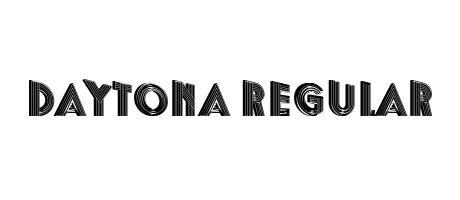
Daytona
Daytona Regular is a bold, geometric sans-serif font. Its letters are composed of stacked, parallel lines creating a three-dimensional, almost embossed effect. The design is clean and modern with a subtle retro feel, suggesting speed and energy. Its strong, even weight makes it highly legible, while the unique lines give it personality.